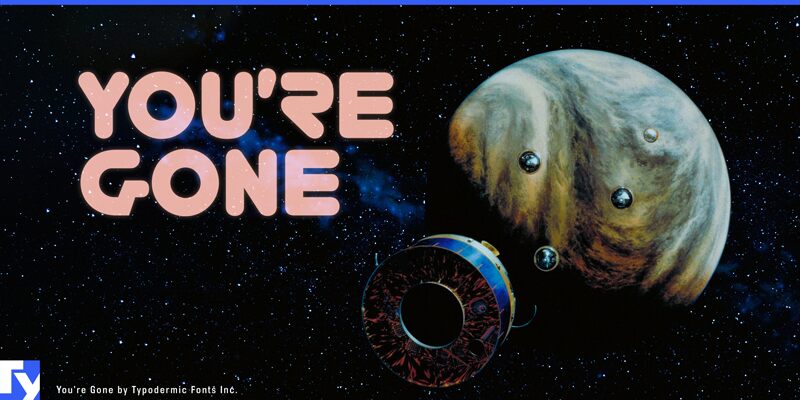
You're Gone Italic from Typodermic Fonts is a free futuristic display font with broad, forward-leaning letters and a dense, aerodynamic profile. Rounded curves and sharp inner cuts give it a machined look.
As a visual role, it can turn a game title or sports logo into part of the action rather than a neutral label. The same streamlined shapes suit racing merchandise and science-fiction posters, where their speed-minded geometry supports themes of machines, competition, and advanced technology with a retro arcade flavor.
Ray Larabie